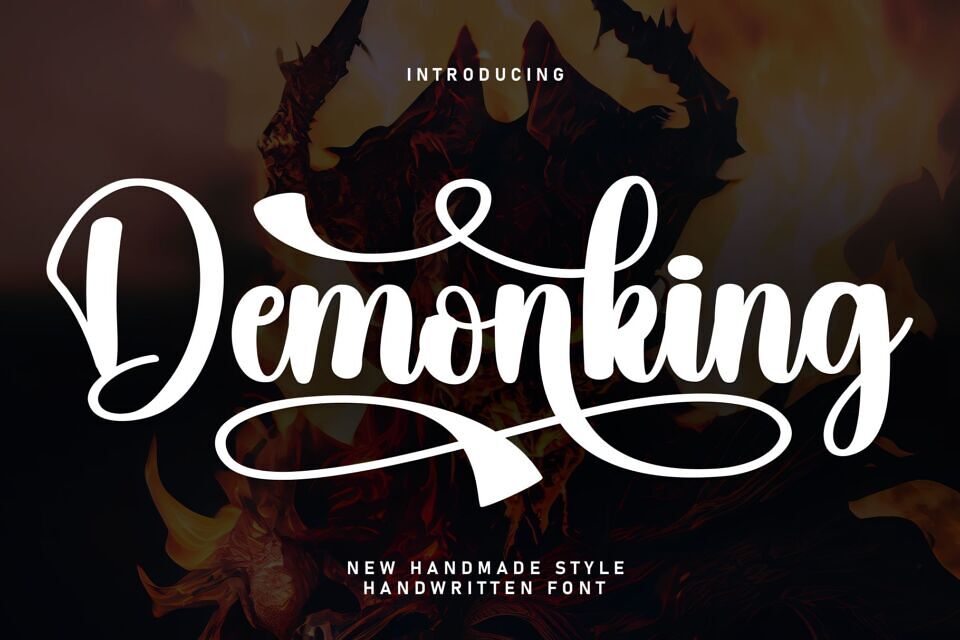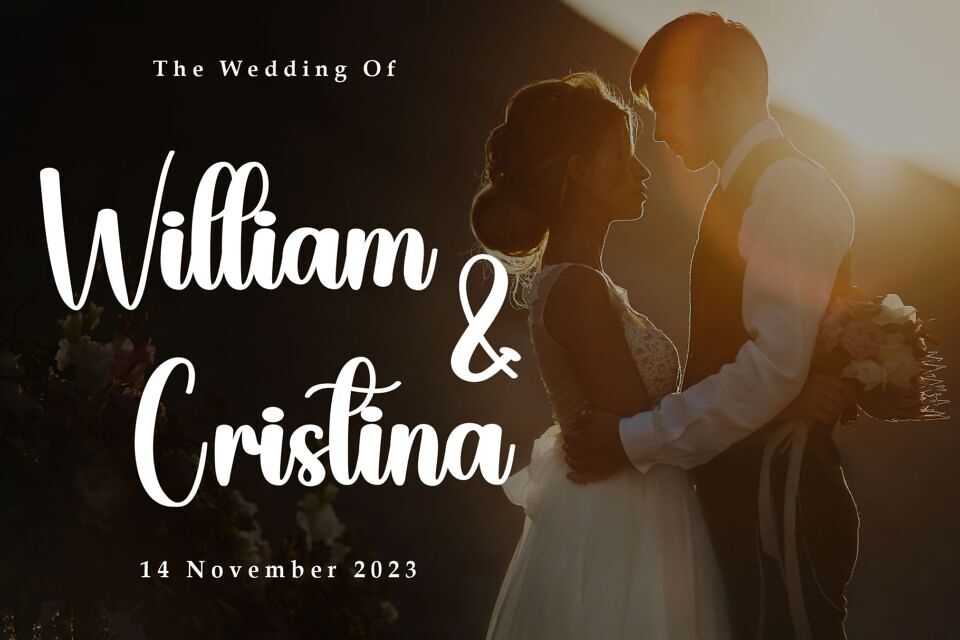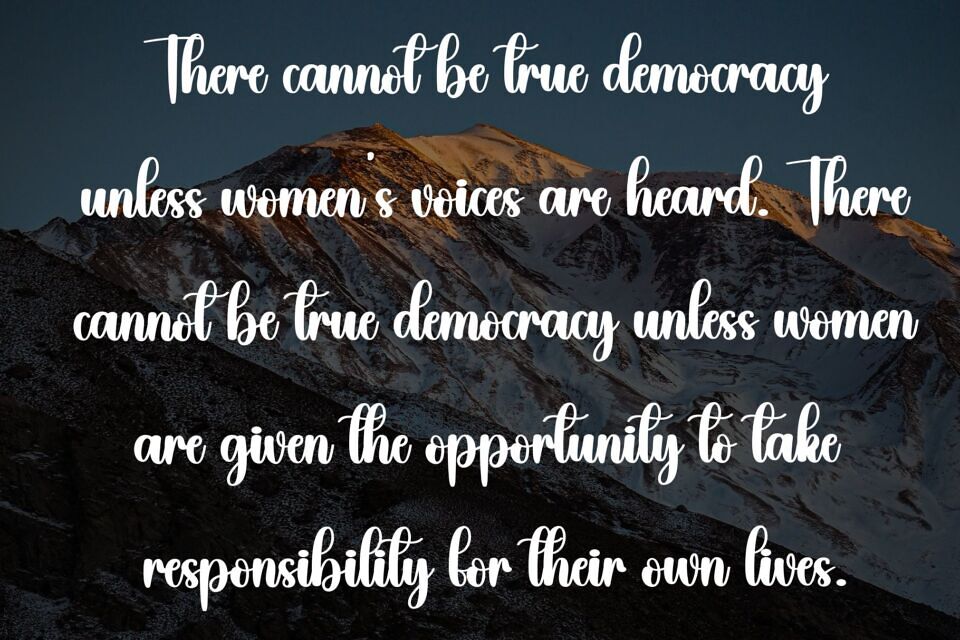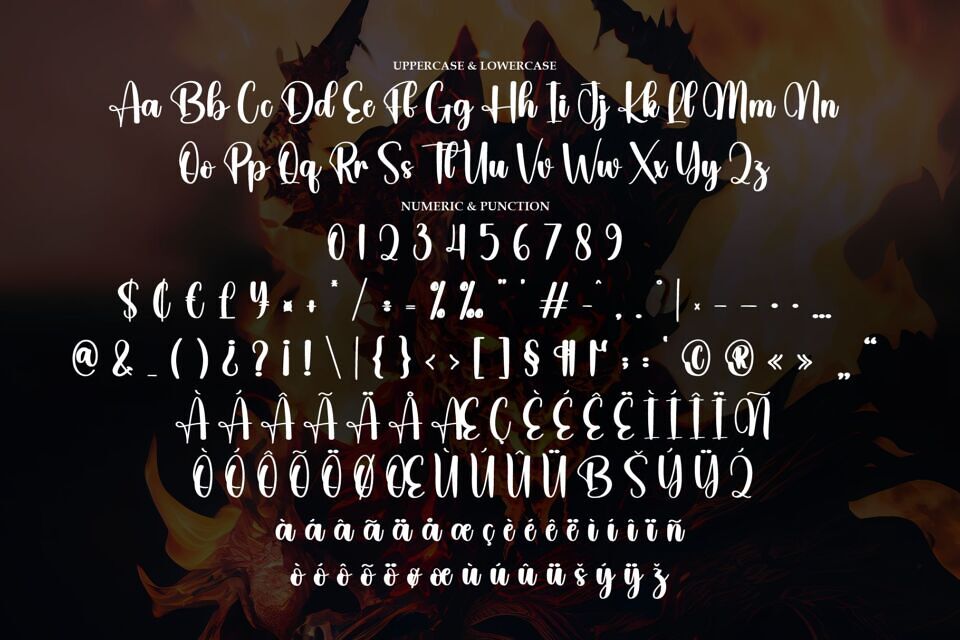
Demonking Font by Scratchones is an elegant, cursive typeface with a flowing, handwritten style. Its delicate, sweeping strokes exude sophistication, making it ideal for inspirational quotes, invitations, or branding projects. The font’s smooth curves and slight flourishes add a touch of femininity and grace.